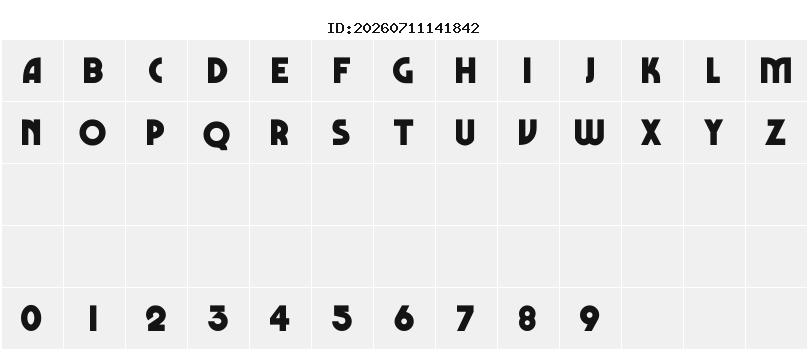
Marbolo-Normal Preview
About Marbolo-Normal.ttf
Marbolo-Normal.ttf is a modern, elegant sans-serif font designed for ultimate readability and visual harmony. Perfect for branding, headlines, web design, and print materials.